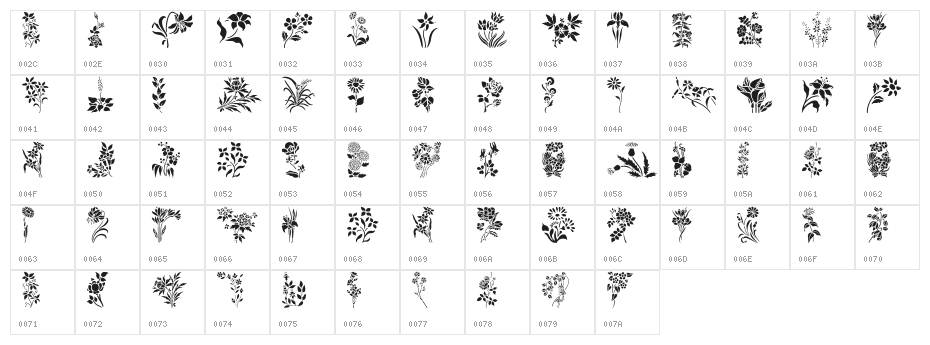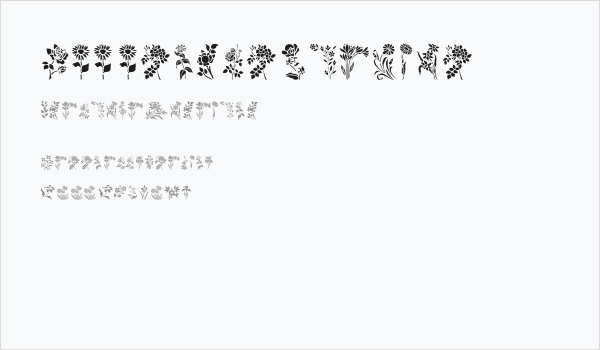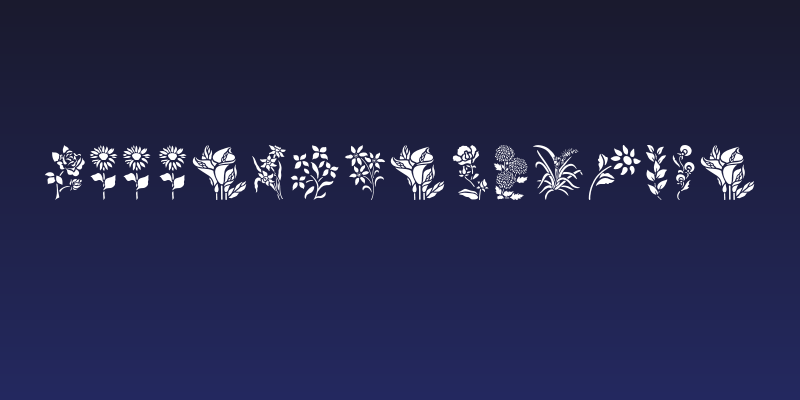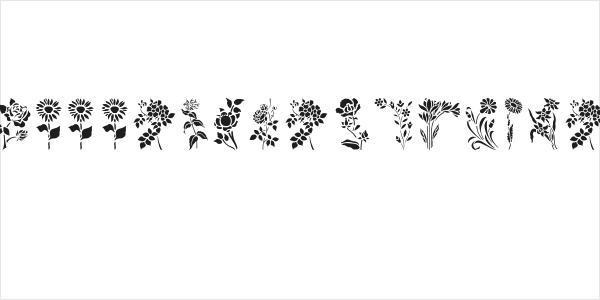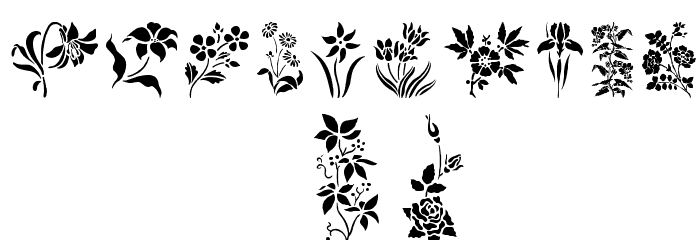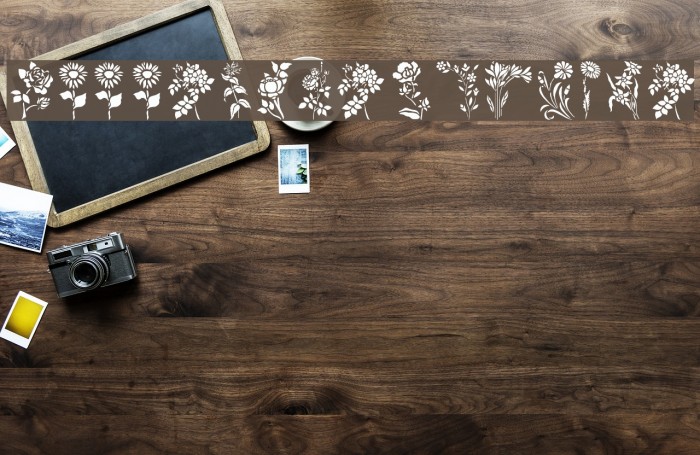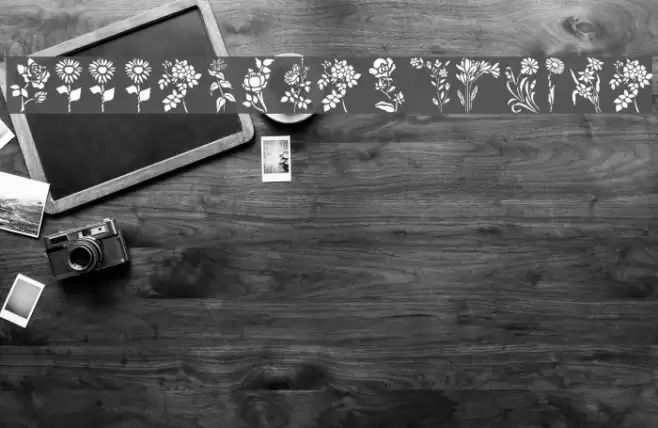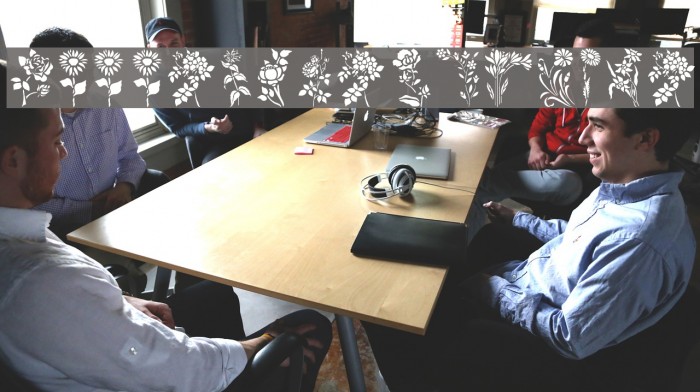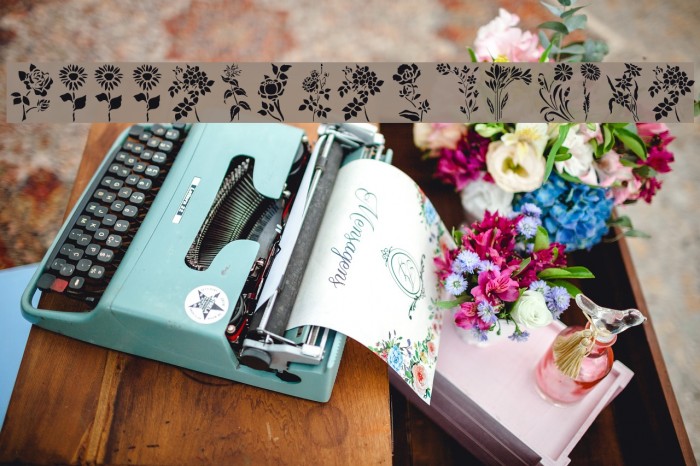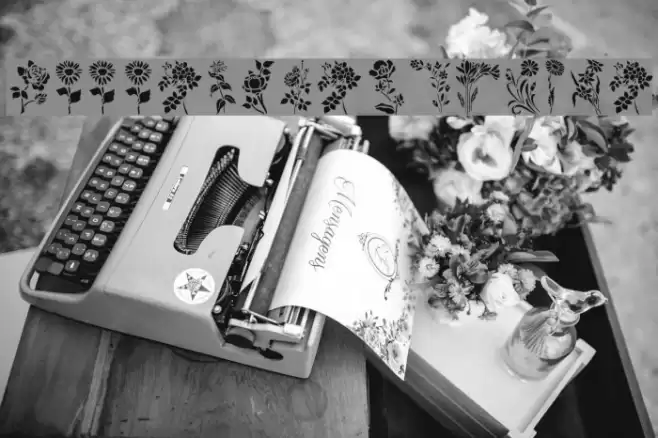
HFF Floral Stencil Font
HFF Floral Stencil Description
A decorative display font featuring intricate floral stencil illustrations in place of traditional alphanumeric characters, with each glyph representing a unique black-and-white flower or plant design. The style is highly ornamental, with bold, solid shapes and clear, defined edges, suitable for creating striking visual impact.
| Overall Style | Decorative, Ornamental, Stencil |
| Use Case | Logos, Headlines, Decorative elements, Themed graphics |
| Proposed Projects | Greeting cards, invitations, posters, decorative headings, craft projects, scrapbooking, branding for florists or garden-related businesses. |